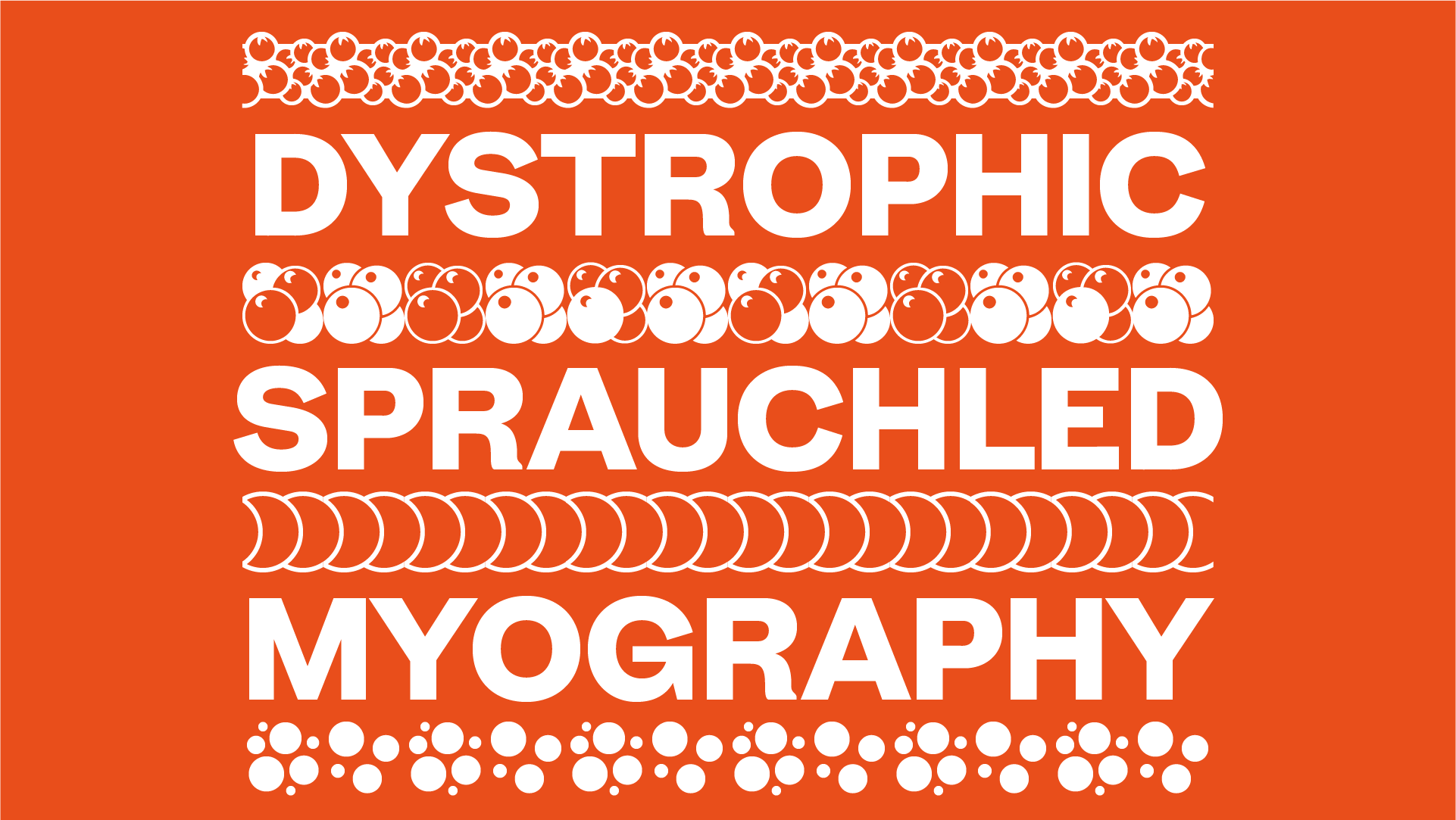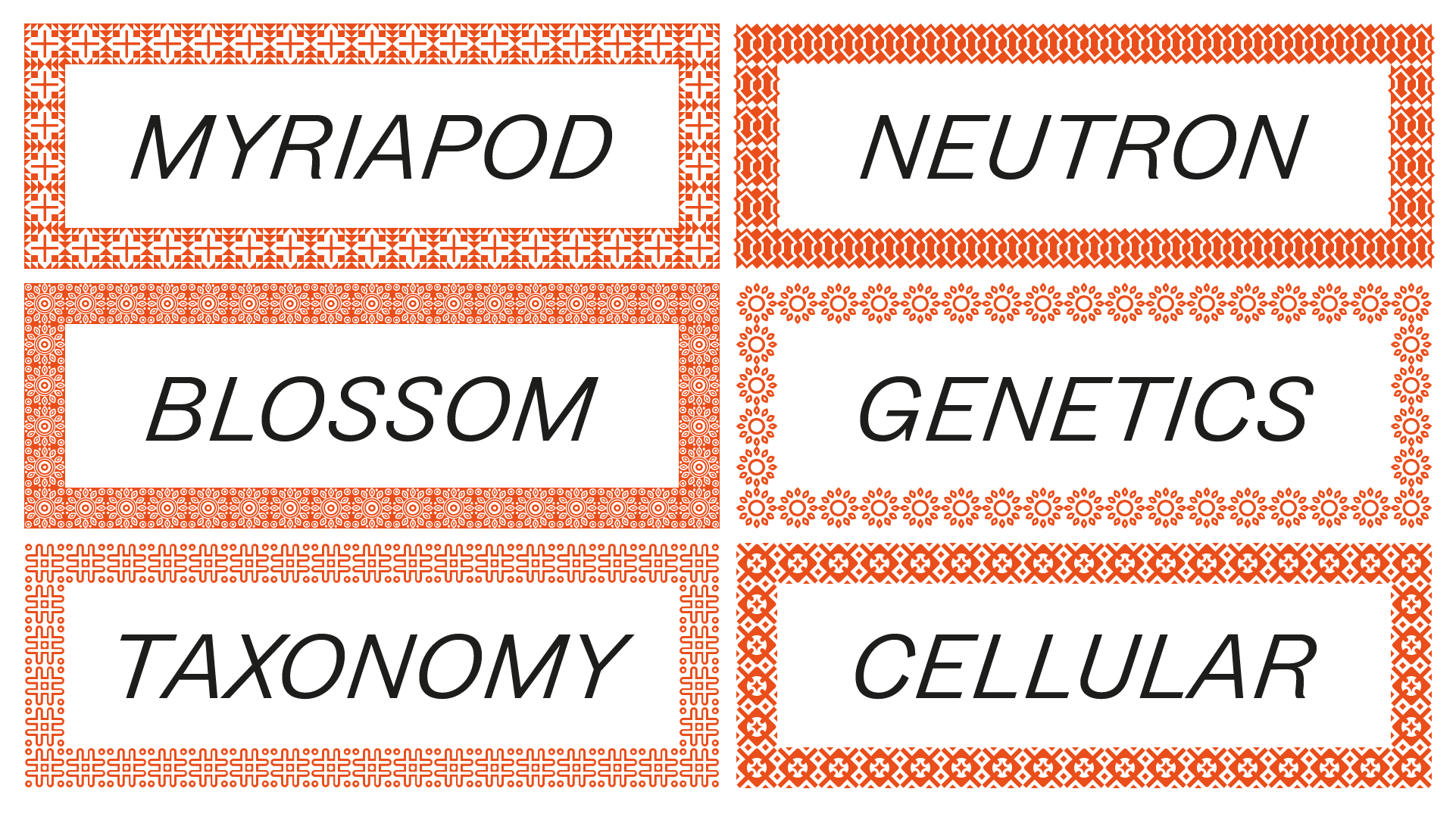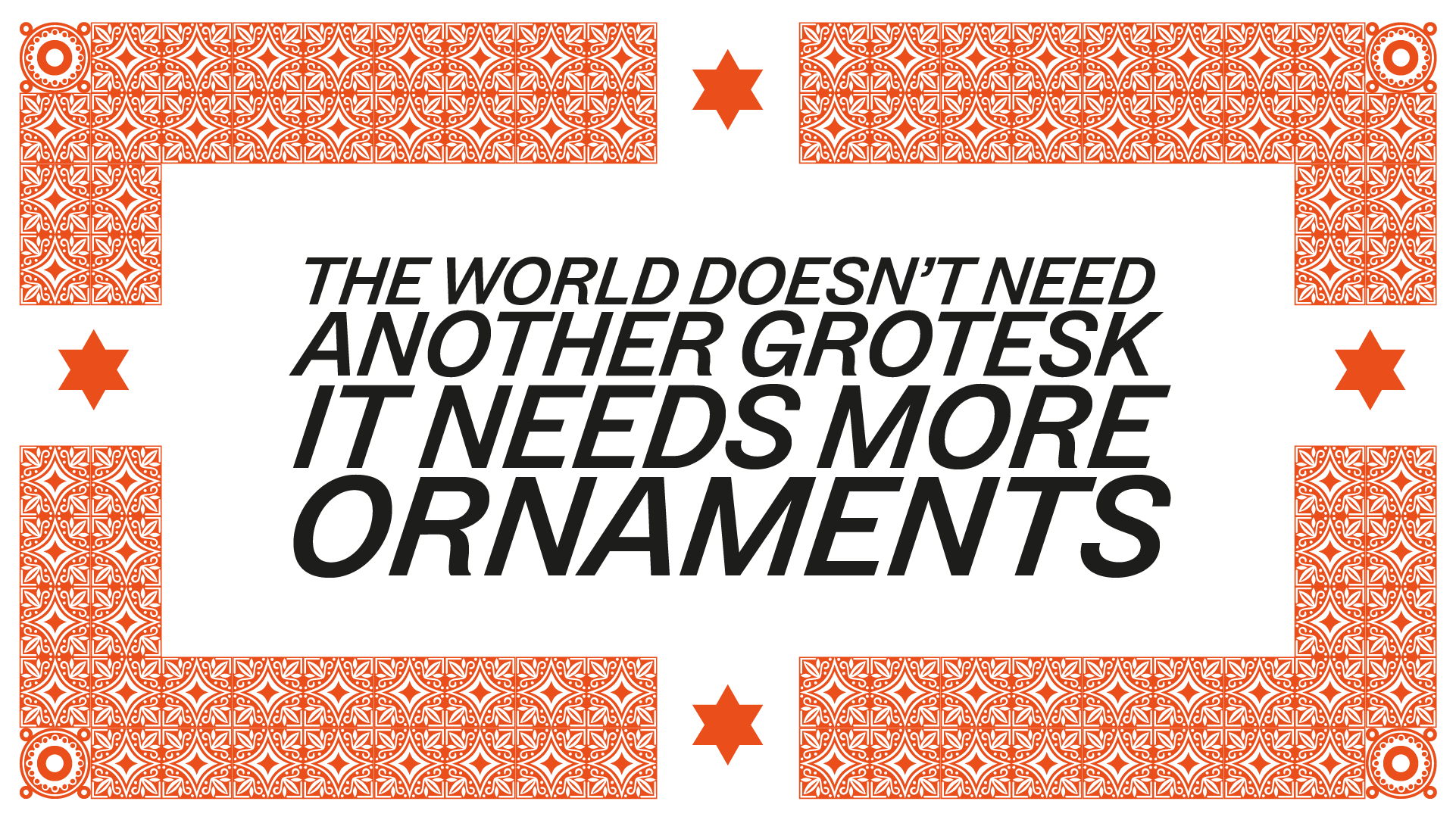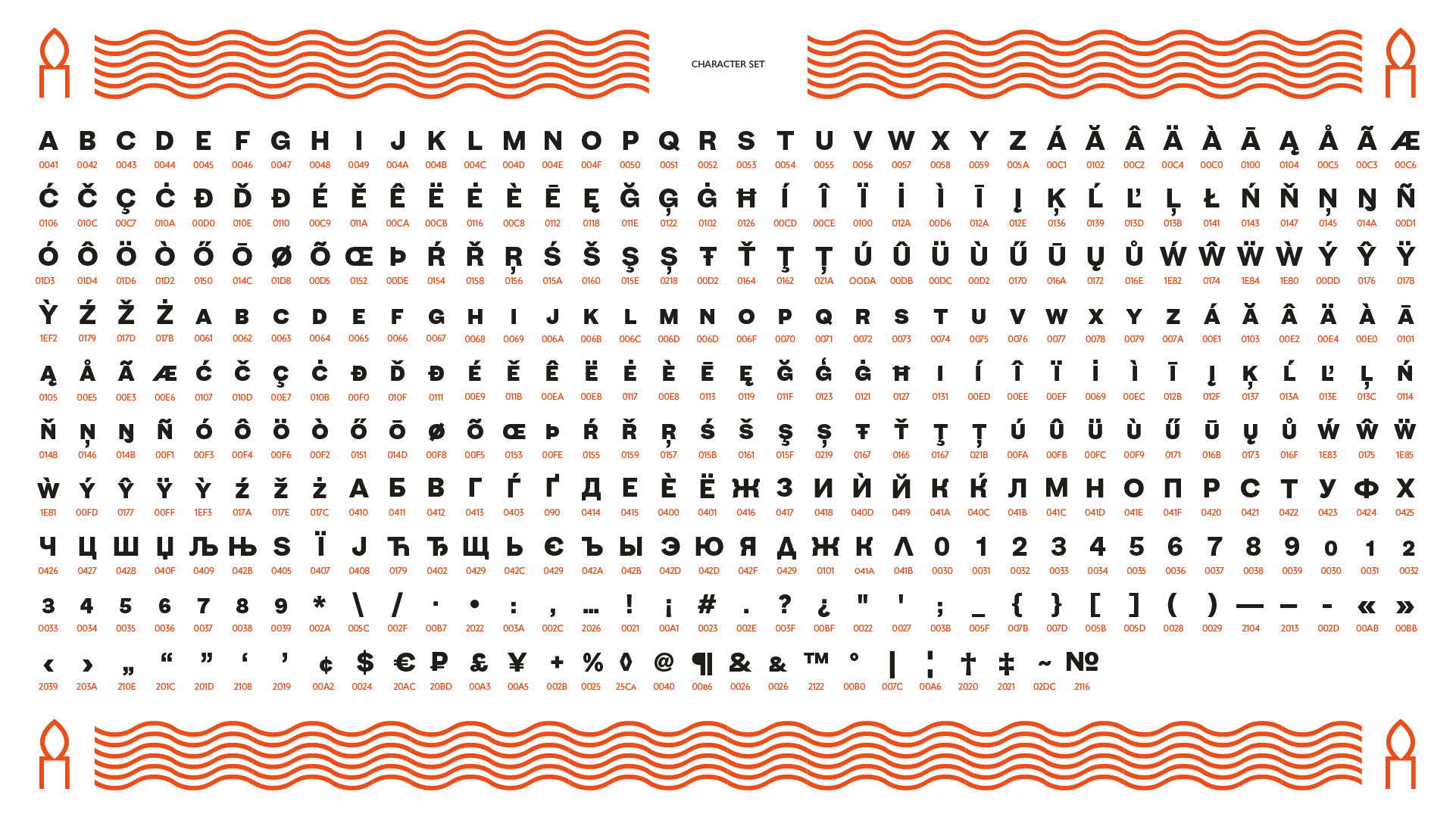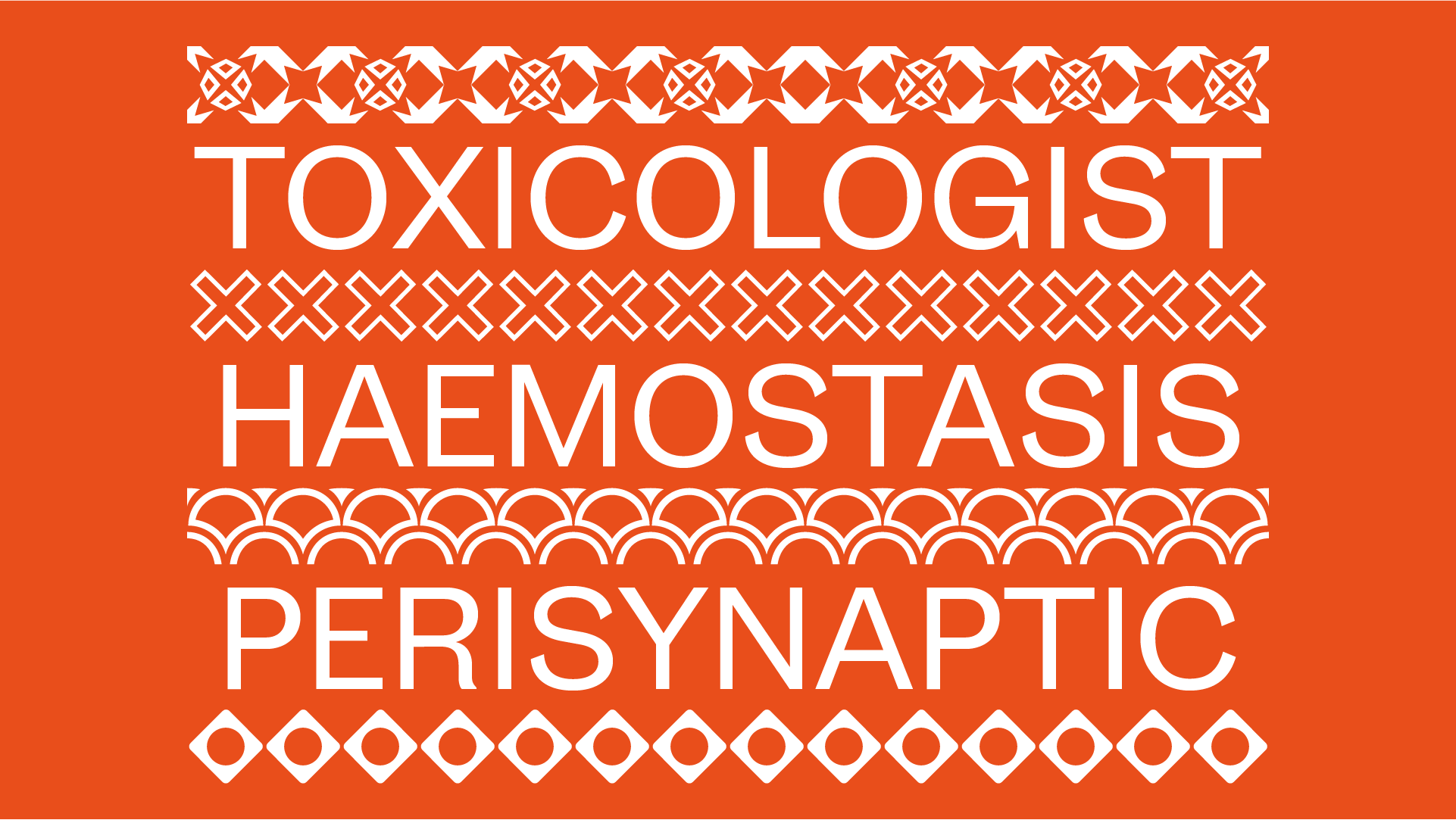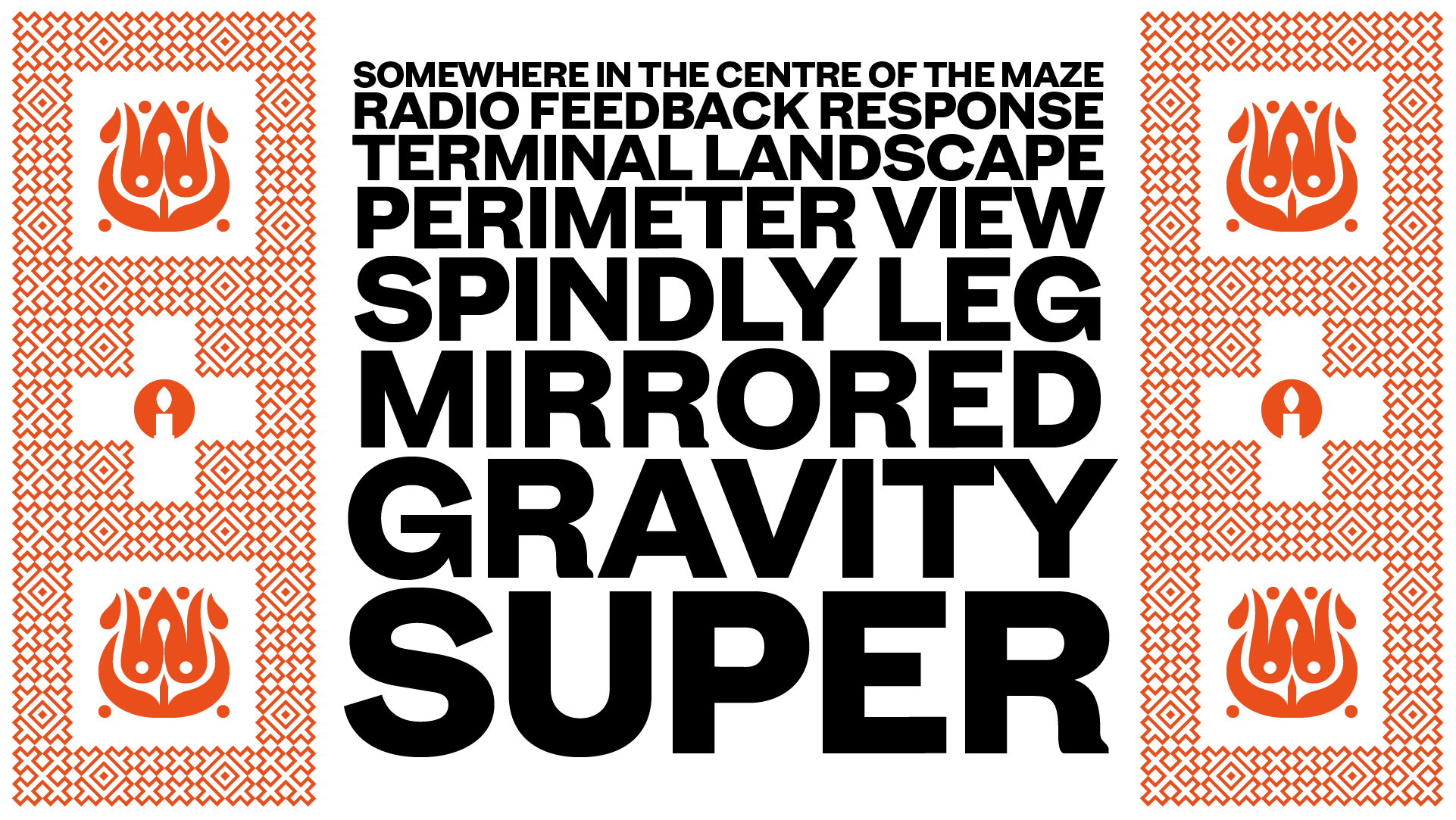
Zierde is a take on early advertising, small-copy grotesks of the late 19th/early 20th century, and is largely inspired by Miller & Richard’s own range of Grotesques. More importantly, Zierde is accompanied by a large set of ornaments (+200) which hark back to the look-and-feel of the early-modernist arts and crafts movement. The ornaments in, and presentation of, Zierde owe much credit to J.G Schelter & Giesecke’s 1913 type specimen book ‘Die Zierde’. The strong functional uppercase sans-serifs alongside luscious, beautiful patterns in ‘Die Zierde’ make for beautiful combinations. This early-modernist use of grotesk alongside ornament looks bizarre in the eyes of us used to seeing sans-serifs in more formal, sterile settings. The face itself retains some historical flourishes such as the eccentric leaning angle of the italics, the long cross-bar on the ‘G’, the gammy-leg of the ‘R’, a strange ampersand and some irregular terminals across the weights. Zierde is display face meant for headlines, titles, short-copy, labels and logos. It comes in caps and small caps, Latin and Cyrillic.